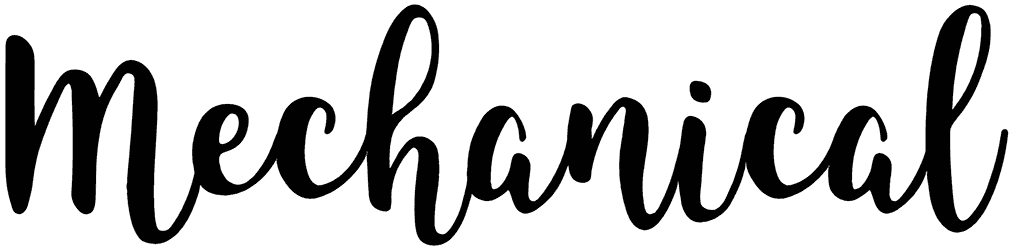
Mechanical Font
Deciding to use an apt and pretty appearance would be a vital step in promotion, and script fonts like this item can be a useful selection. Mechanical font with its smooth form can reflect a natural and modern feeling. Our handwritten fonts collection can help you save time and find the best options for your intended project simultaneously.